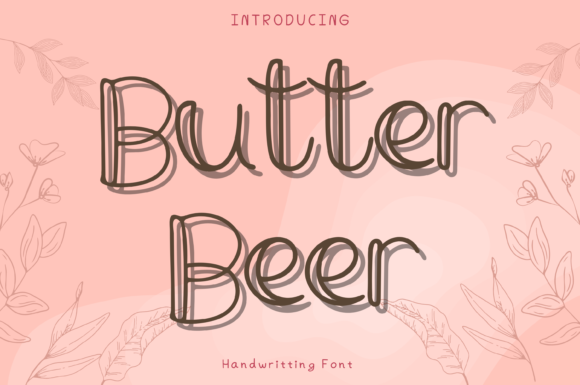
The Magical World of Butter Beer Style Font
Have you ever been in the middle of a design project, and suddenly, you’re stuck on finding the perfect font? I certainly have! It was a typical Wednesday afternoon when I was working on a whimsical craft project for a client who wanted a font that would transport their audience to a magical world. As I scrolled through my font library, I stumbled upon Butter Beer Style Font, and it was love at first sight! ✨
A Personal Review of Butter Beer Style Font
As a designer, I’m always on the lookout for fonts that can elevate my projects. Here’s my honest review of Butter Beer Style Font:
- ✨ Whimsical and clean handwritten style that adds a touch of magic to any project
- ✅ Highly versatile and can be matched with a wide range of projects, from crafts to digital designs
- 💫 Unique character set that includes OpenType features, glyphs, and stylistic alternates
- 🤔 Limited availability of uppercase letters, which might limit its use in certain projects
- ⚠️ Some users might find the font a bit too playful for formal designs
The Backstory of Butter Beer Style Font
Butter Beer Style Font was inspired by the magical world of fantasy novels, particularly the Harry Potter series. The font’s creator wanted to capture the whimsical and playful spirit of the beloved books and bring it to life in a digital format. The result is a font that’s both clean and playful, perfect for adding a touch of magic to any project.
Q: What is the personality of Butter Beer Style Font?
A: Butter Beer Style Font has a whimsical and playful personality, making it perfect for creative projects that require a touch of magic.
Q: Is Butter Beer Style Font suitable for formal designs?
A: While Butter Beer Style Font is a beautiful font, it may not be the best choice for formal designs due to its playful nature. However, it ultimately depends on the specific design and the message you want to convey.